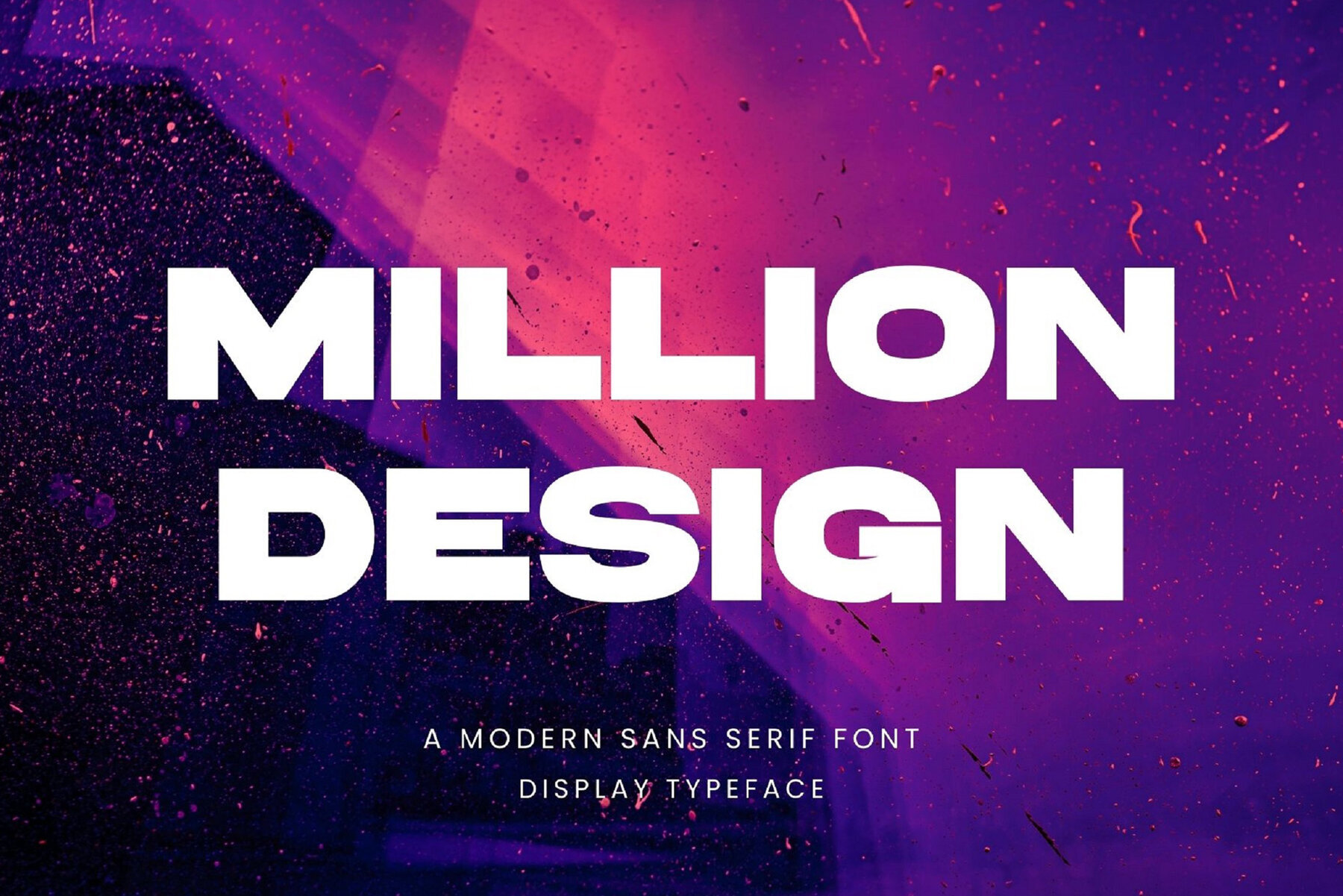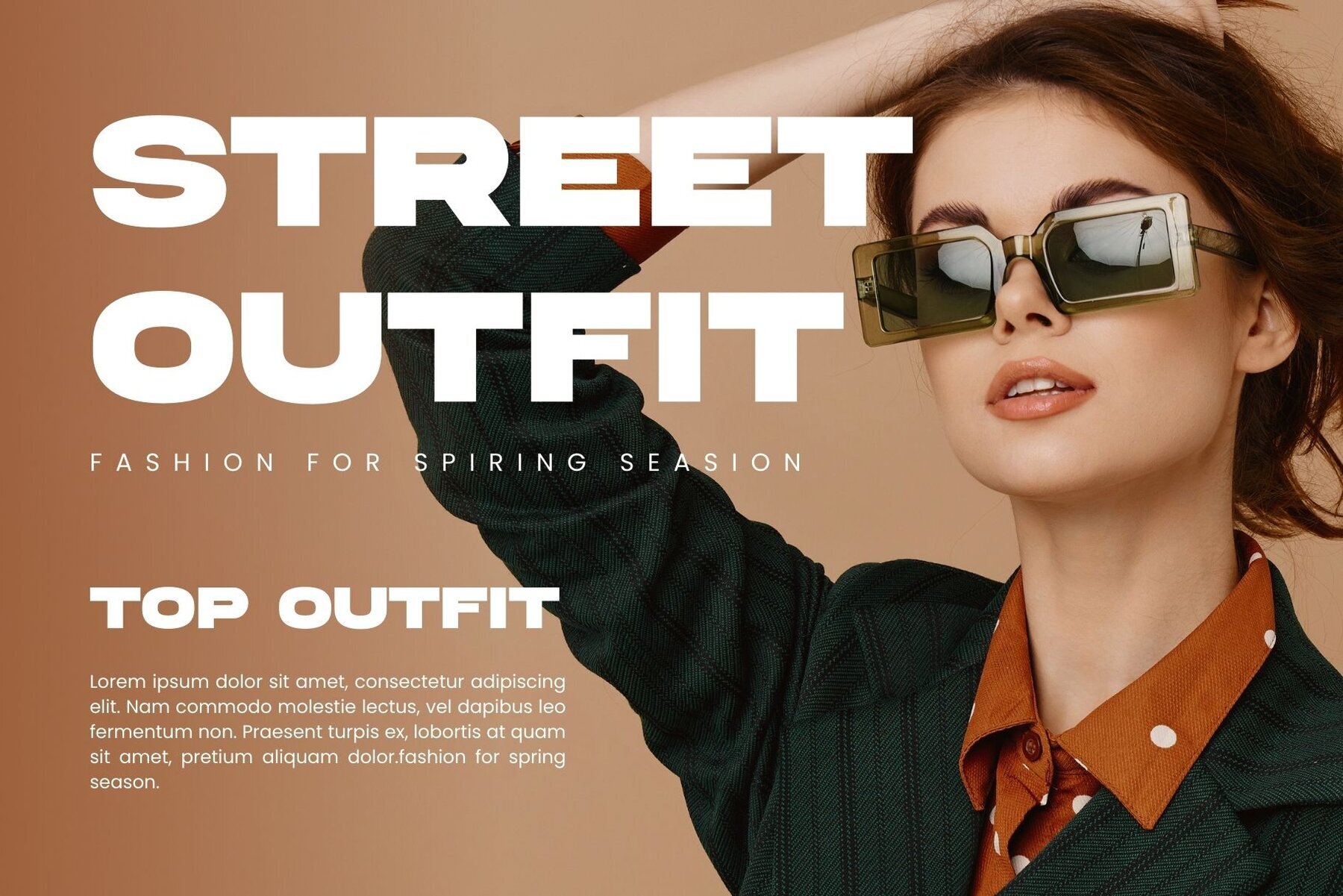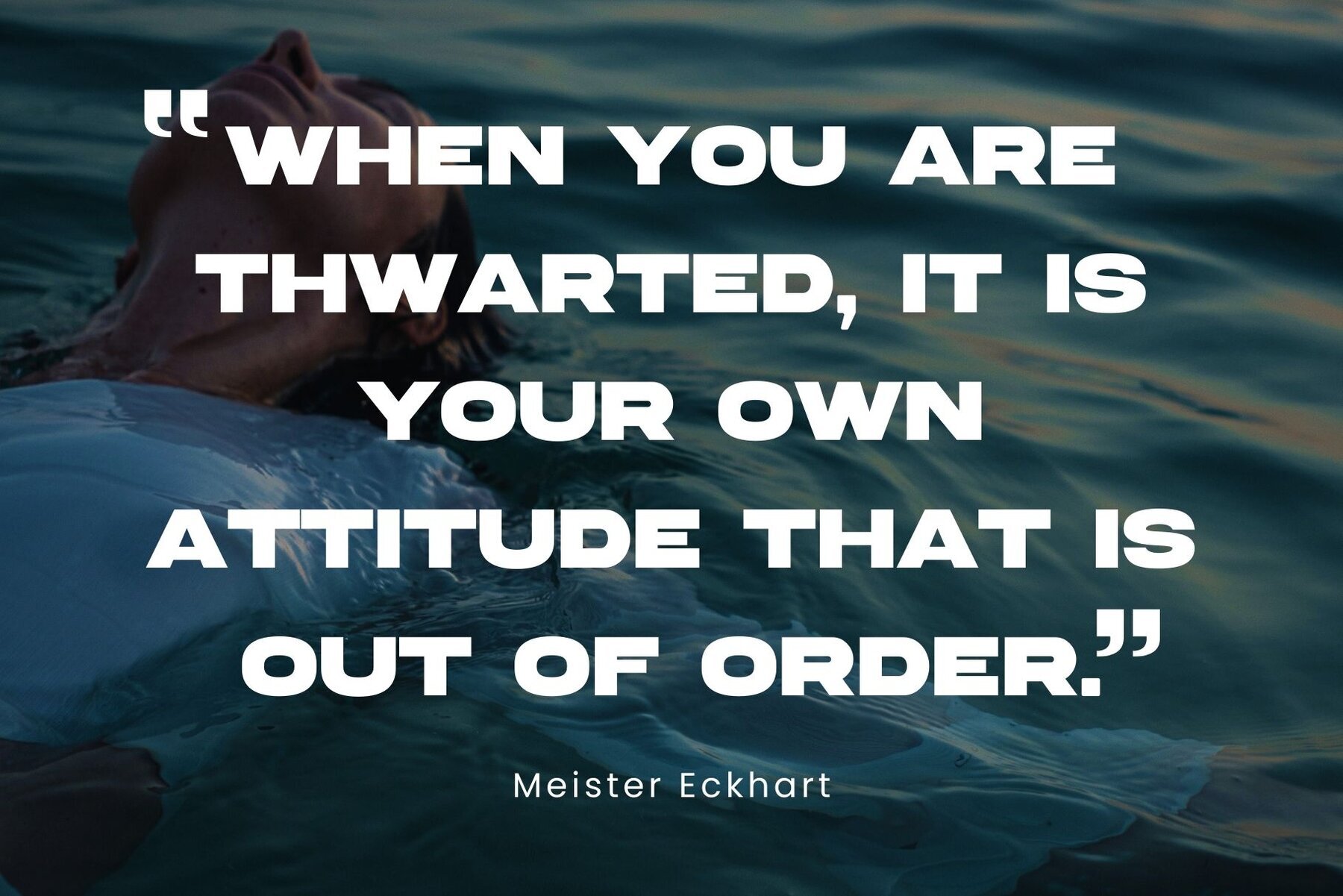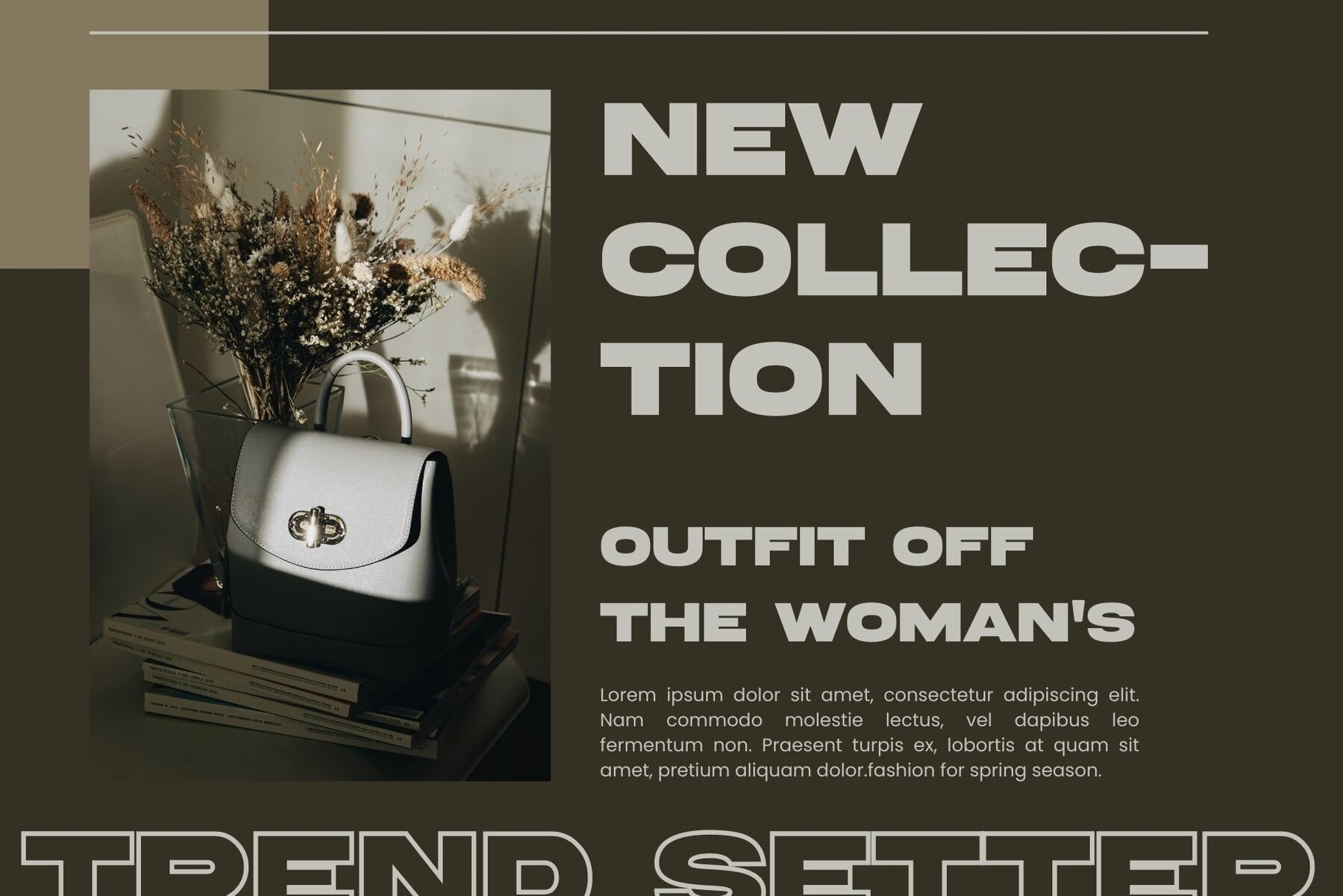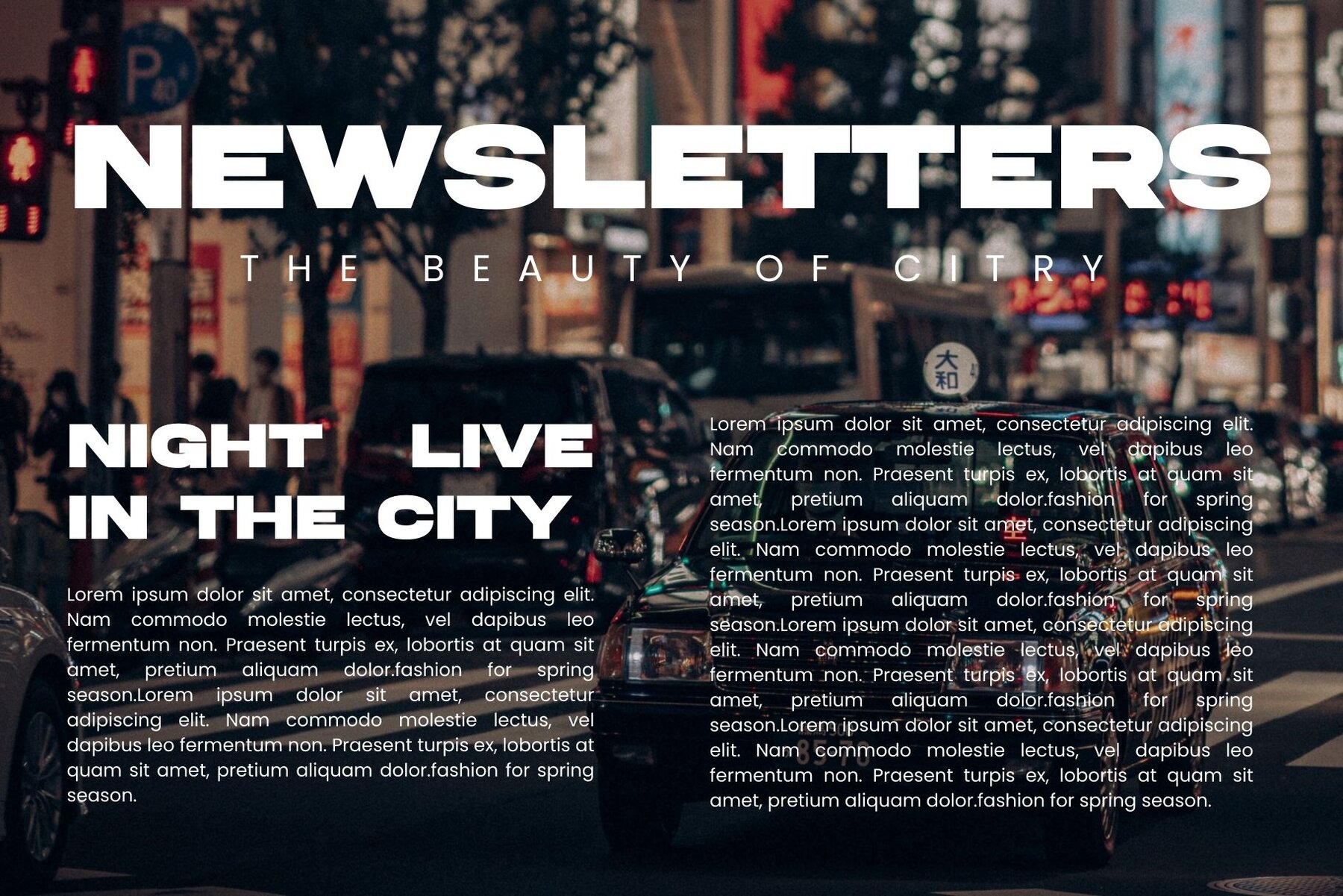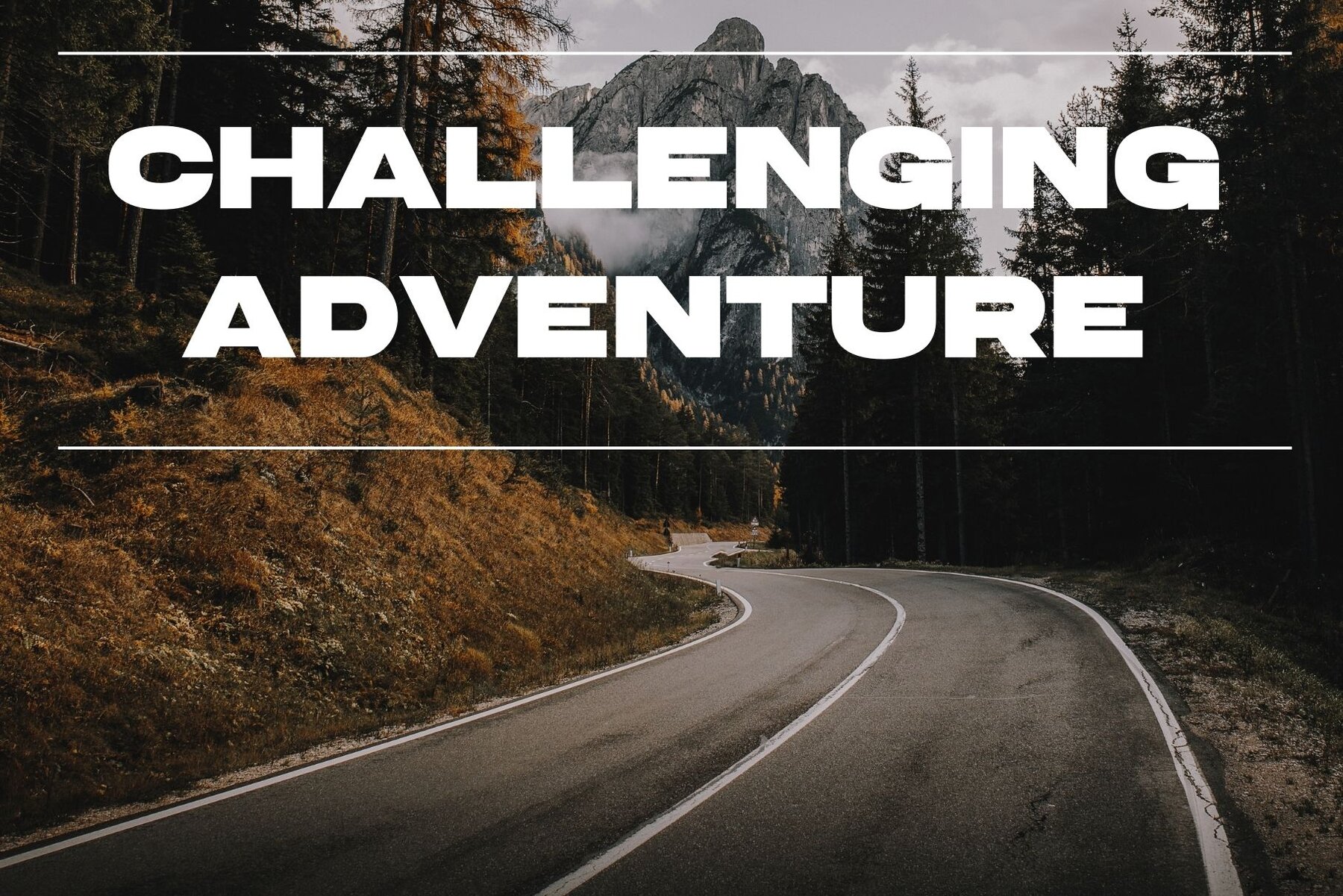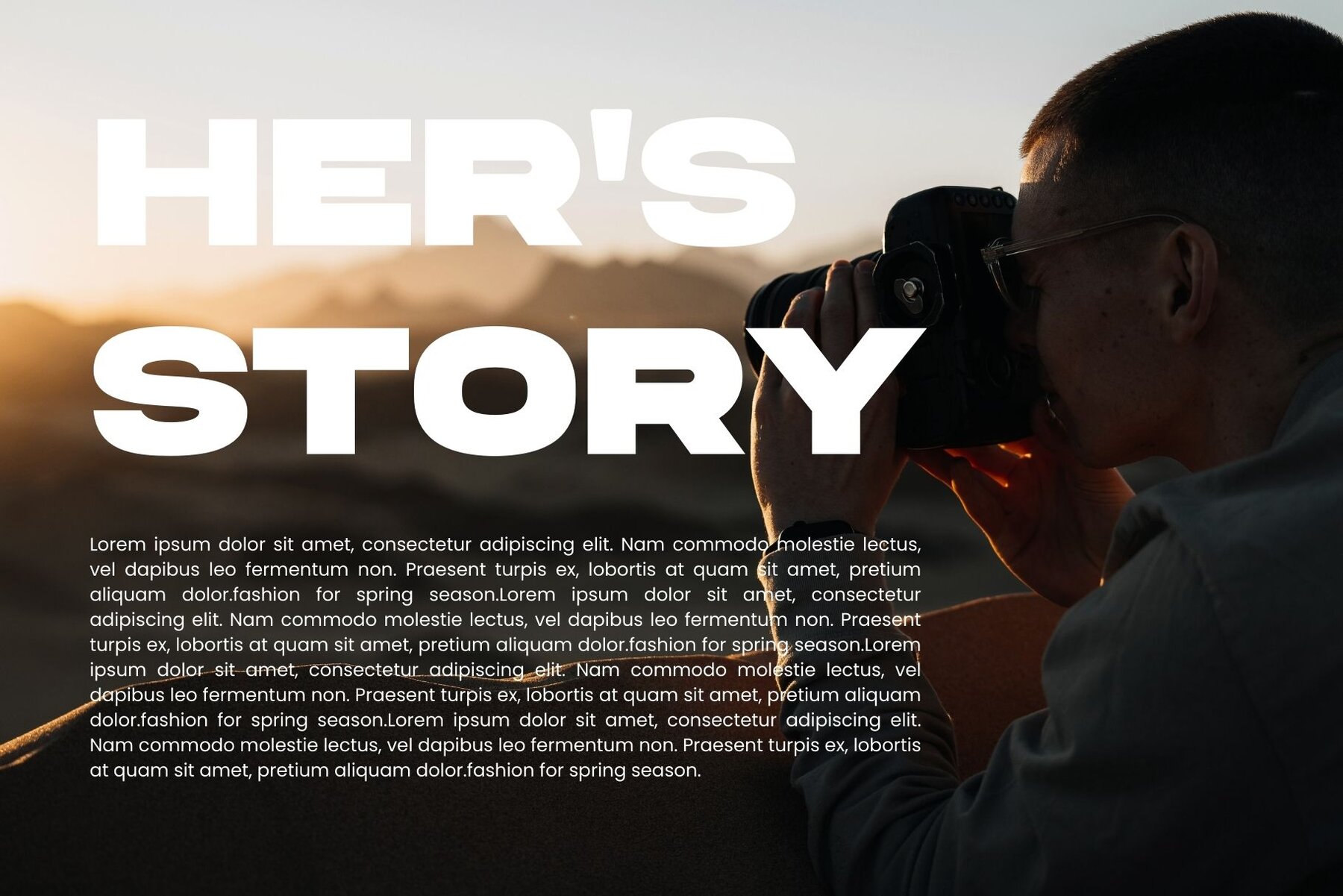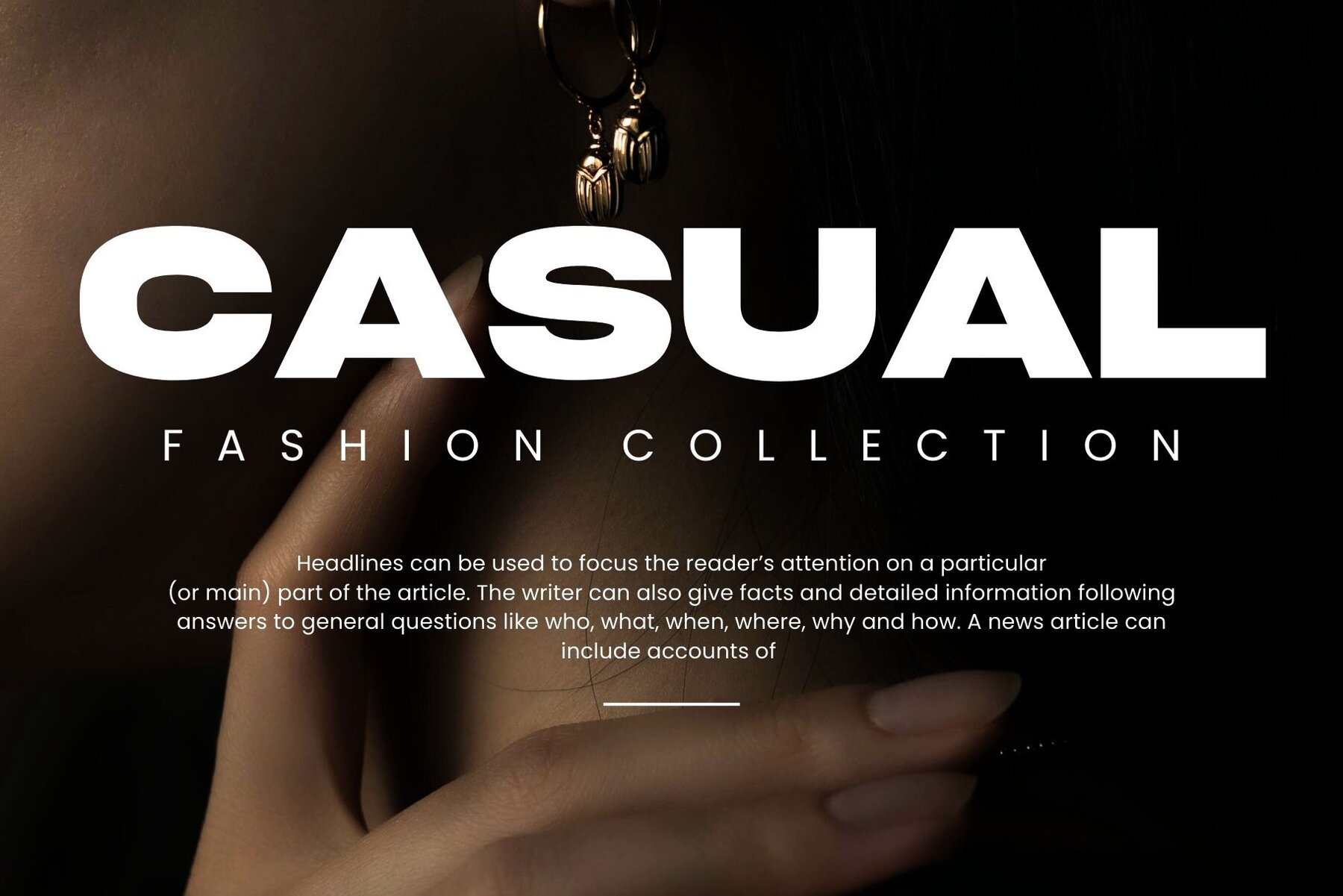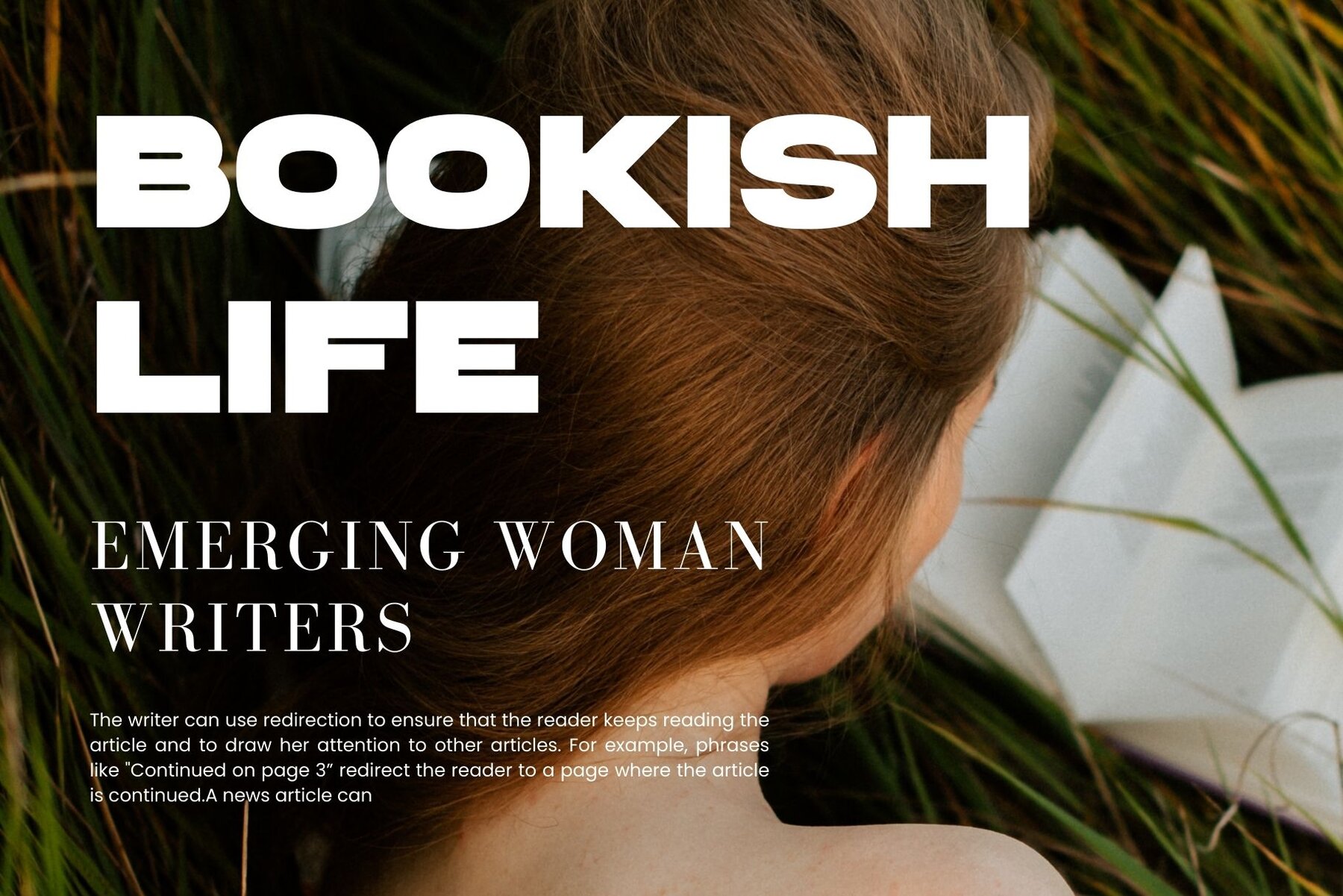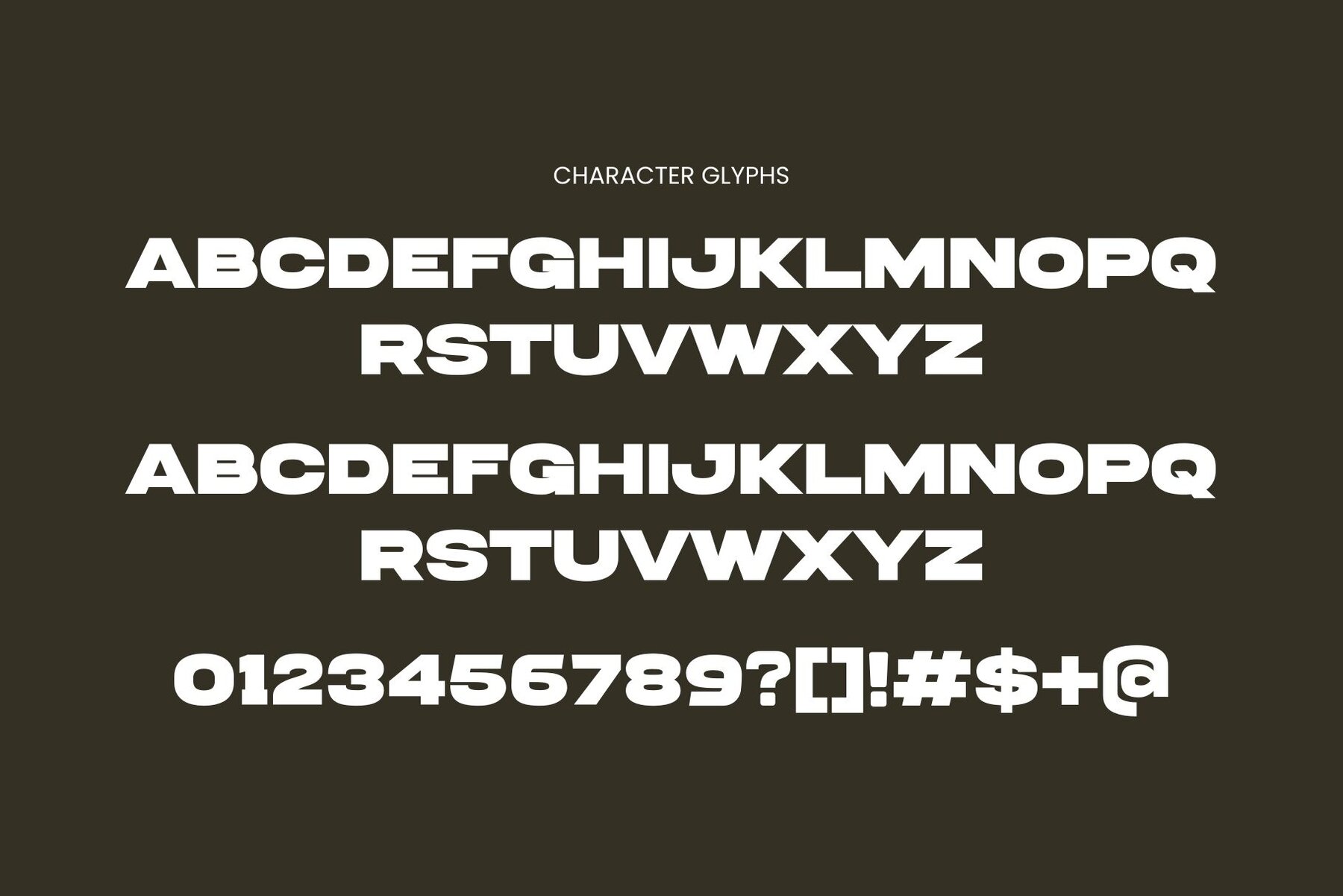
Million Design Font
Million Design
Million Design by Graphicxell draws inspiration from iconic minimalist logos. This versatile design is ideal for creating templates, brochures, videos, branding, logos, invitations, layout designs, and more. Its elegant style is perfect for crafting beauty designs and other sophisticated projects.Million Design: Minimalist Elegance for Modern Branding